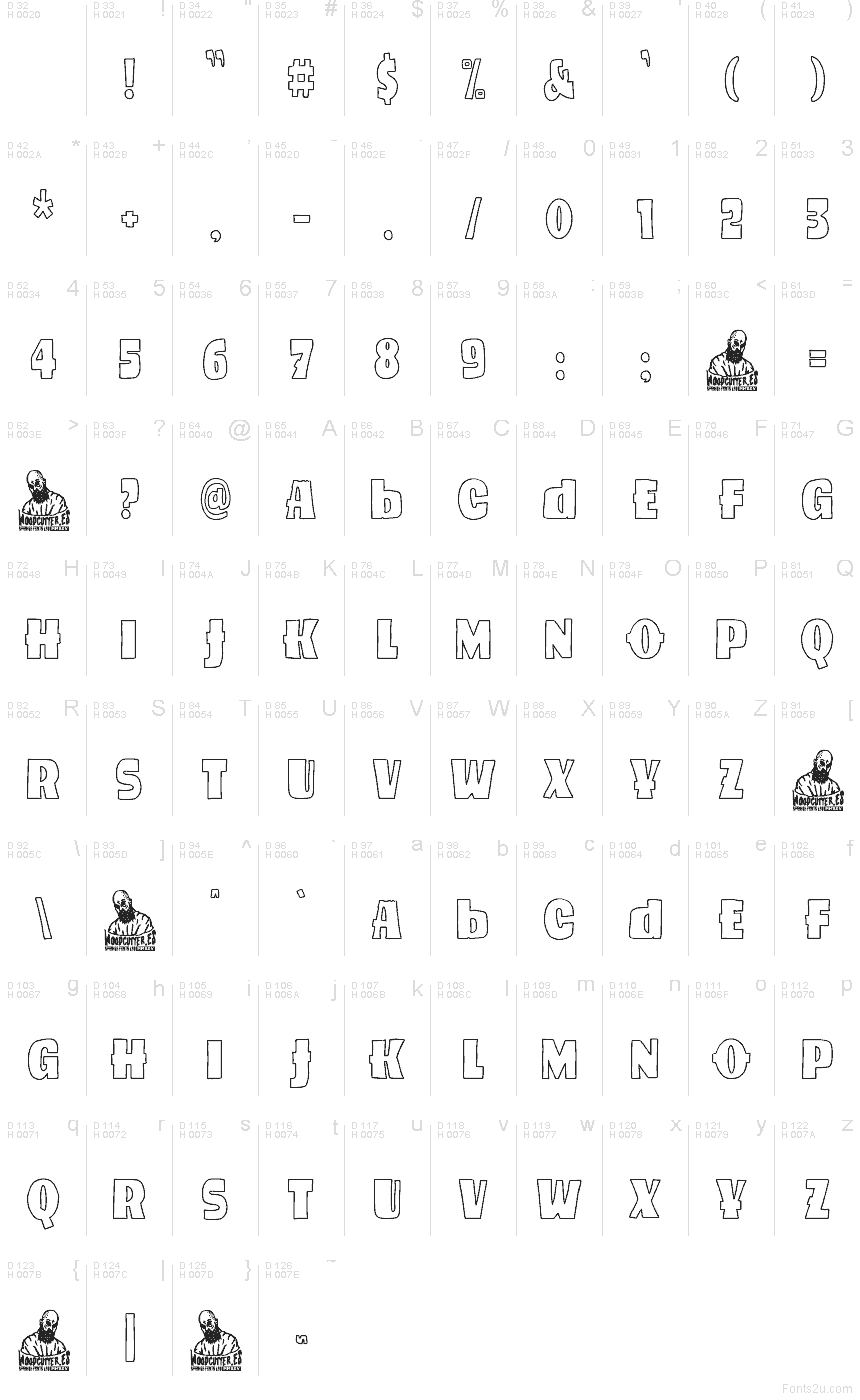
Verde Esperanza Outline
Verde Esperanza Outline font by Woodcutter is a free outlined display typeface with a festive Mexican flair. Its chunky, softly squared letters and hand-drawn, slightly wobbly contours feel like inked poster titles traced by hand, ready to be filled with color or texture. The open shapes give your designs room to breathe while still delivering bold, lively energy that reads clearly at a distance.
Using Verde Esperanza Outline, you can bring a playful cantina vibe to food packaging, fiesta event posters, party invitations, menus, signage, and themed social media graphics. This free font shines when used large, where its hollow forms invite bright fills, gradients, or photo textures. Pair it with a simple, neutral sans serif for body text to let Verde Esperanza carry the headline personality without overwhelming the layout.